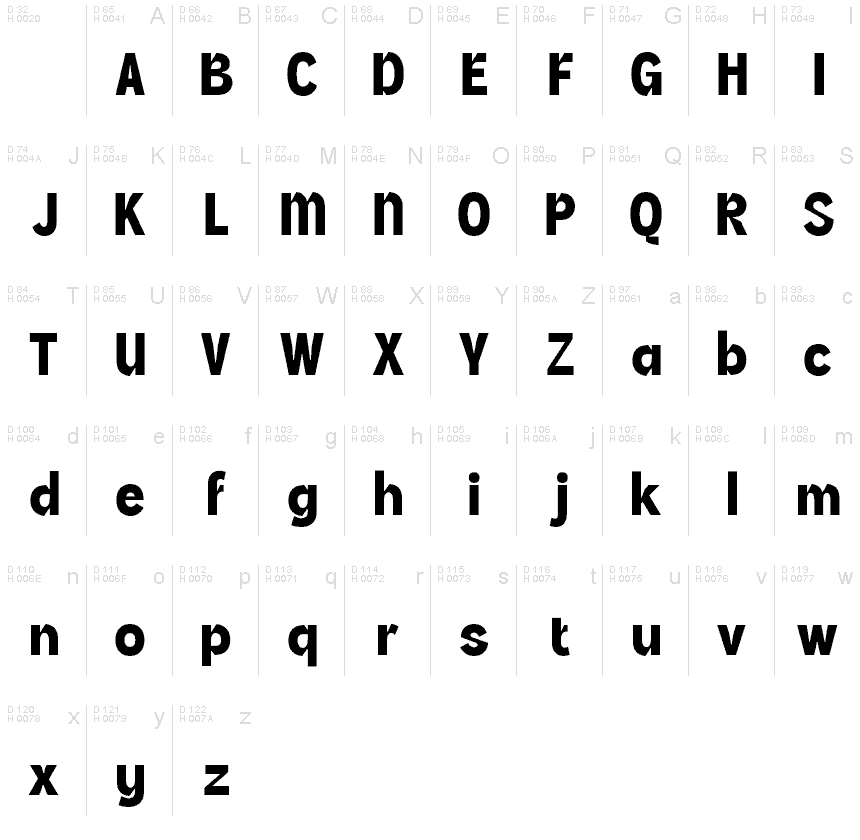
CS Beltane Regular Demo
CS Beltane font by Craft Supply Co. is a bold sans serif with tall proportions and geometric shapes. Its smooth curvature and modern aesthetic make this free font an appealing choice for multiple design projects where style is key.